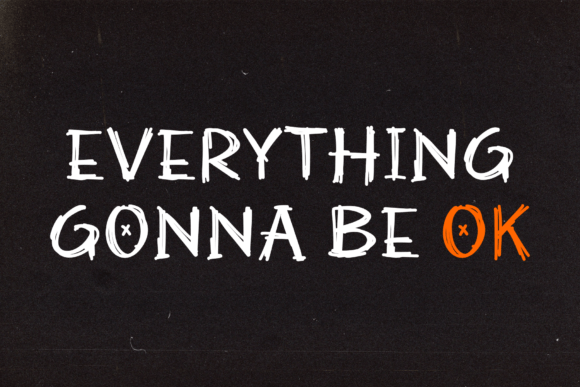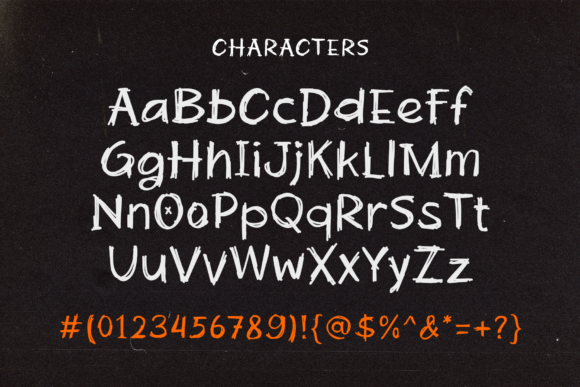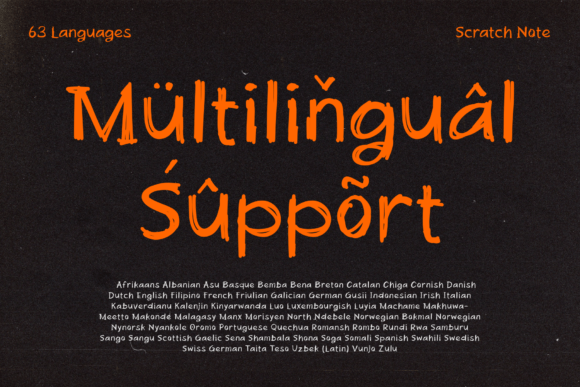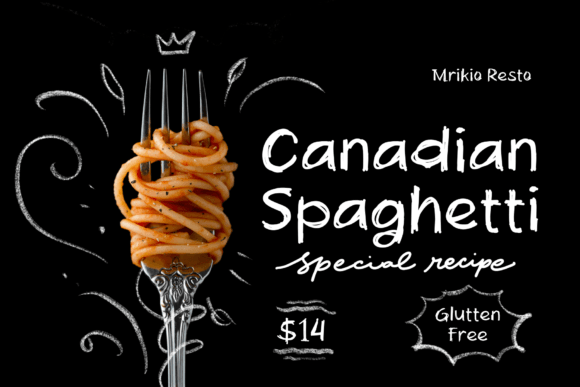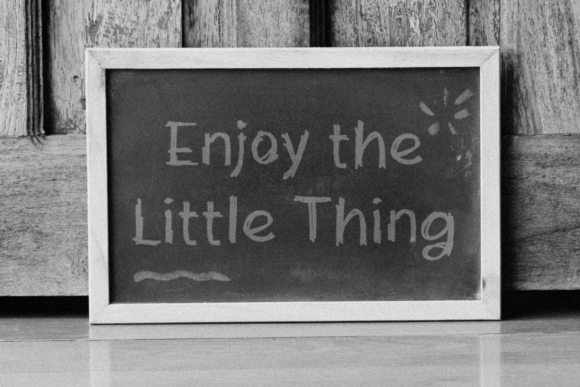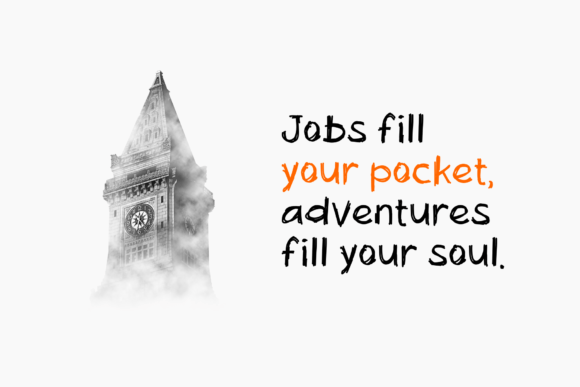
Introduction to Scratch Note Font
Have you ever been working on a creative project, pouring your heart and soul into it, and then, just as you’re about to finalize it, you need a font that perfectly captures the essence of your vision? That’s exactly what happened to me when I stumbled upon the Scratch Note Font. I was looking for a display font that would add a touch of authenticity to my design, something that would make my audience feel like they’re experiencing a genuine, handmade creation.
As a designer, I know how valuable it is to have high-quality design resources at our fingertips. The Scratch Note Font is one such treasure, carefully crafted to evoke the feeling of sketches and handwritten notes. Its natural, imperfect charm is not only aesthetically pleasing but also makes it perfect for logo design, watermarks, or headline text in magazines.
Key Features of Scratch Note Font
- High-quality design with a distressed, handwritten feel, perfect for creative projects and DIY crafts.
- Unique characteristics include subtle texture and imperfections, adding a touch of authenticity to your creative project.
Honest Review: Scratch Note Font
As a designer, I’m always on the lookout for high-quality design resources that can elevate my creative projects. I recently stumbled upon the Scratch Note Font, and I’m excited to share my honest review.
- ✨ High-quality font design that captures the essence of a scratch note.
- ✨ Versatile font that can be used for a variety of creative projects, from digital art to print design.
- ⚠️ Limited font sizes and styles, which may not be suitable for all design projects.
- ⚠️ Not ideal for use in large blocks of text, as the scratch note aesthetic may become overwhelming.
Overall, I’m impressed with the Scratch Note Font. Its unique design and high-quality construction make it a valuable addition to any design library. While it may have some limitations, it’s a great resource for designers looking to add a creative touch to their projects.
Scratch Note Font
The Scratch Note Font is perfect for creating eye-catching titles, headings, and quotes. Use it in your social media graphics, blog posts, or any other design project where you want to add a touch of elegance and sophistication.